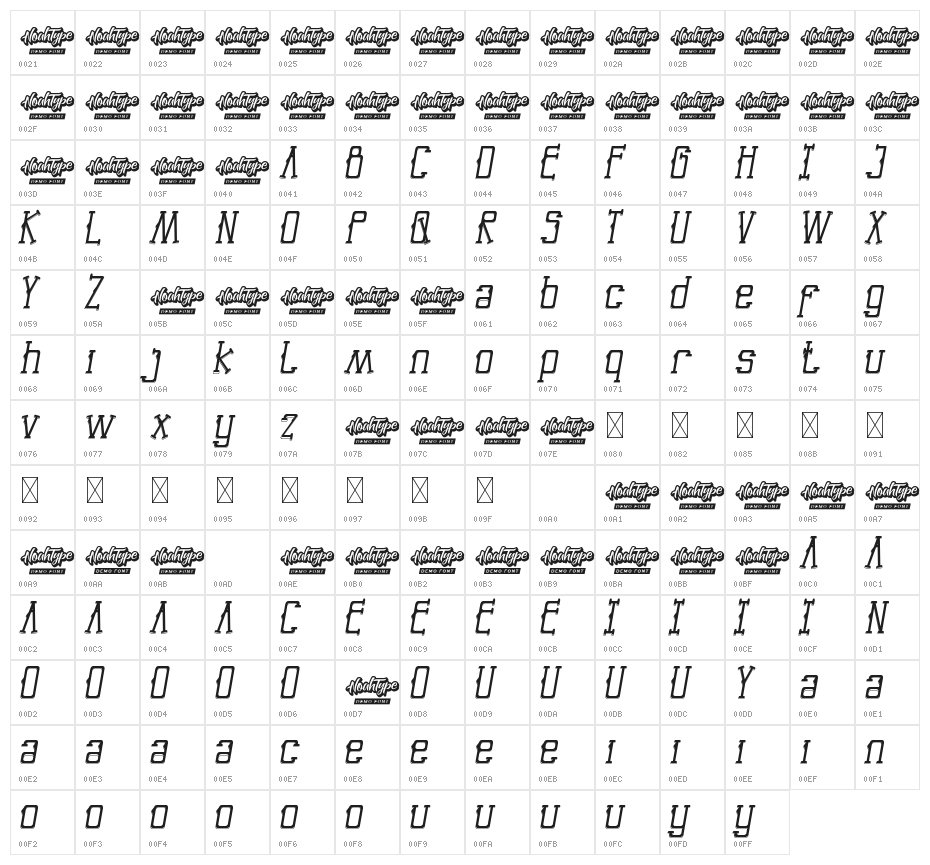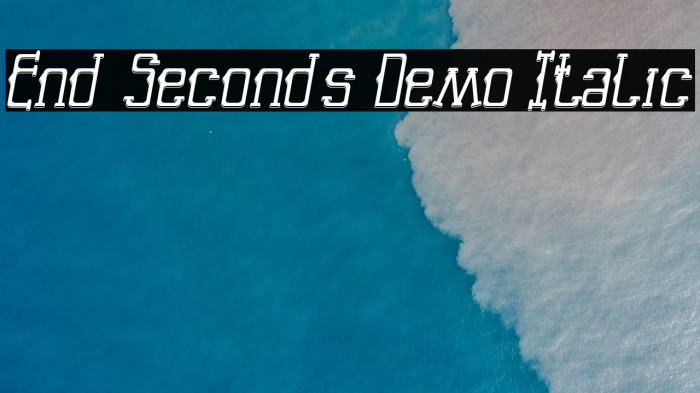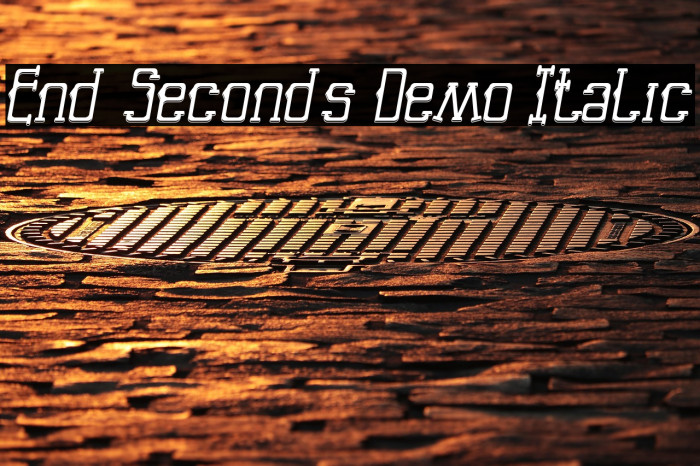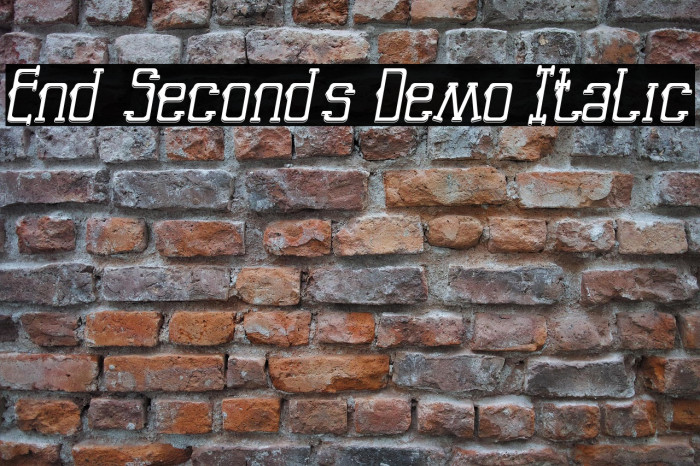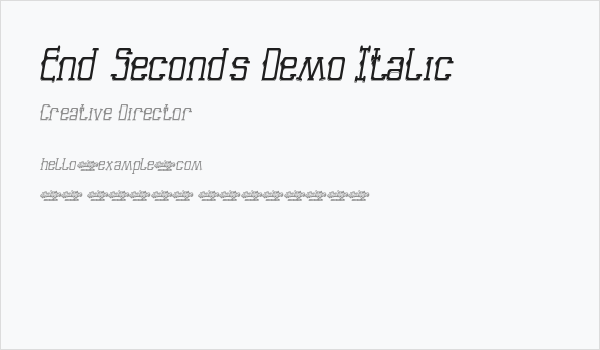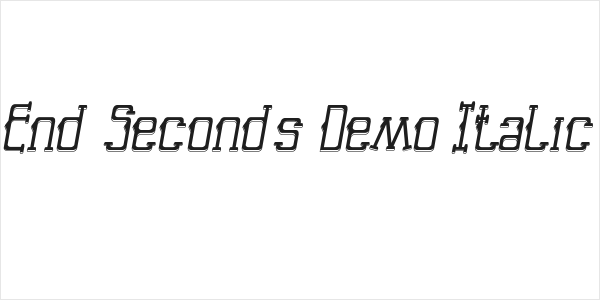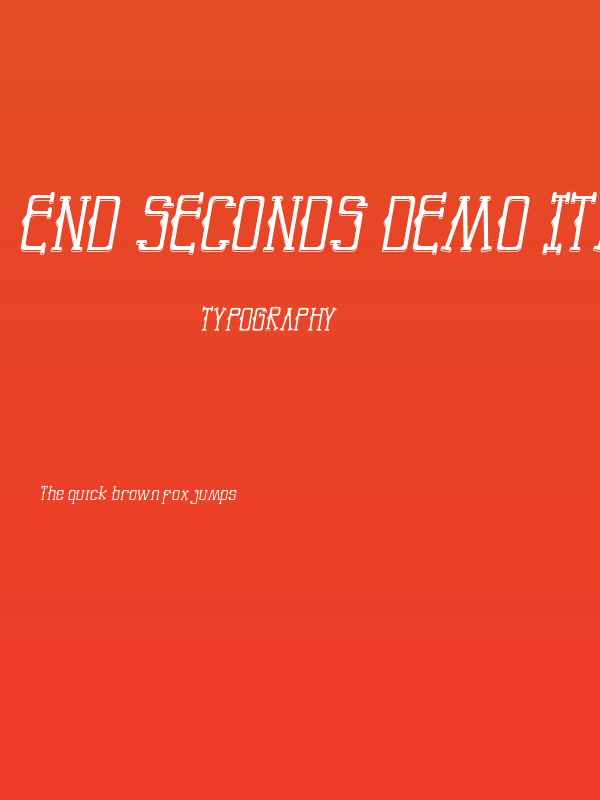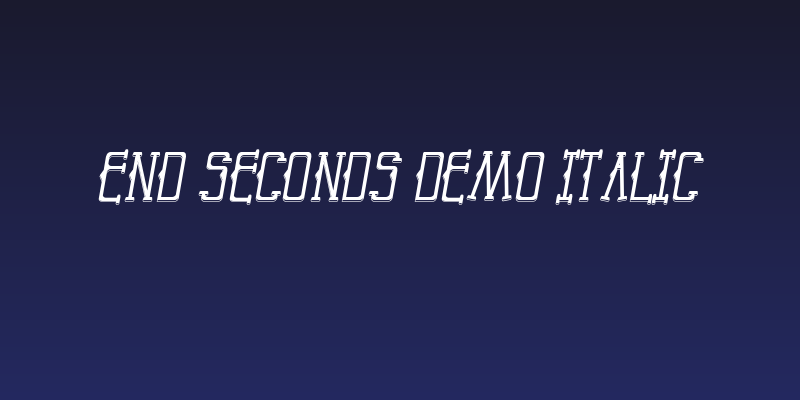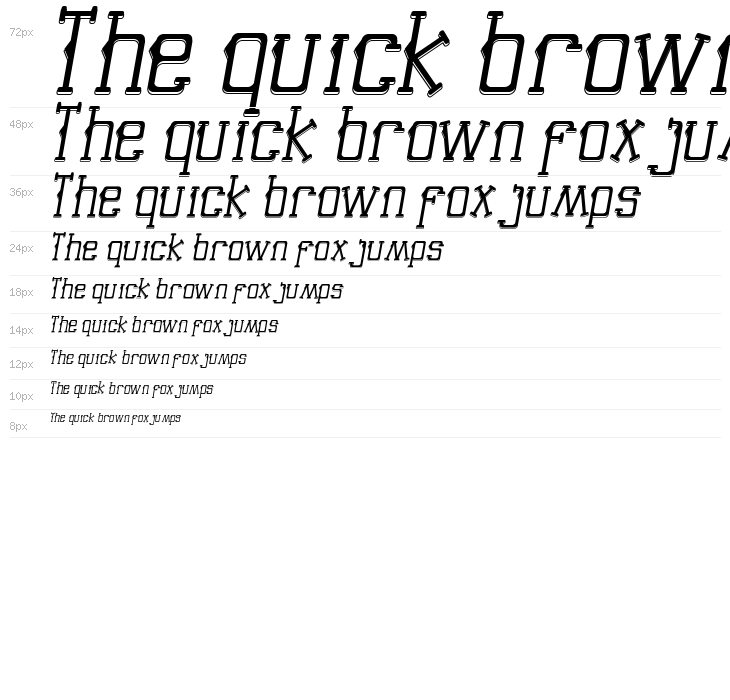
End Seconds Demo Italic Font
End Seconds Demo Italic Description
This font features a unique, modern design with a distinct italic slant, giving it a dynamic and forward-moving appearance. The characters are outlined with a bold, black stroke, creating a striking contrast against the inner white space. Each letter is crafted with angular, geometric shapes, providing a futuristic and edgy feel. The uppercase and lowercase letters maintain consistency in style, with sharp edges and a slightly condensed form. The numerals and special characters follow the same design principles, ensuring uniformity across all glyphs. This font's bold outline and italic style make it stand out, ideal for projects that require a modern and eye-catching typeface.
| Proposed Projects | Ideal for branding, posters, headlines, and any design requiring a modern, dynamic look. |